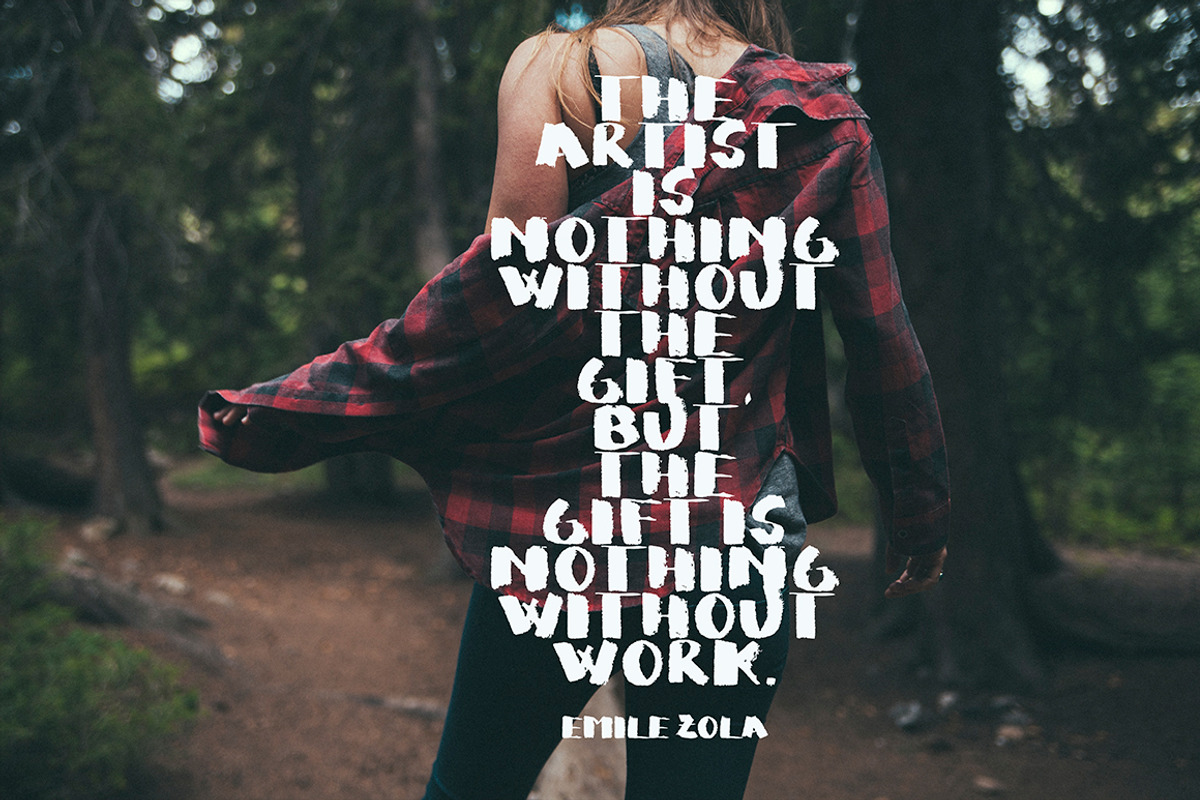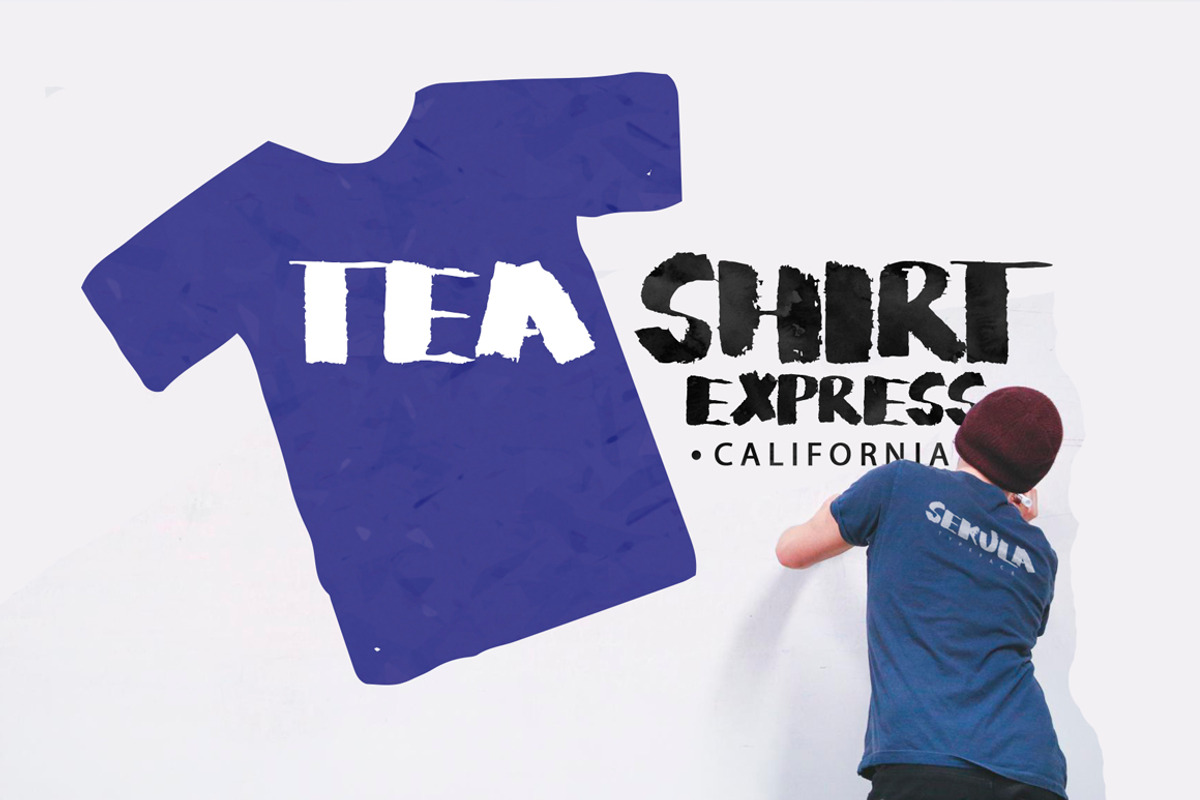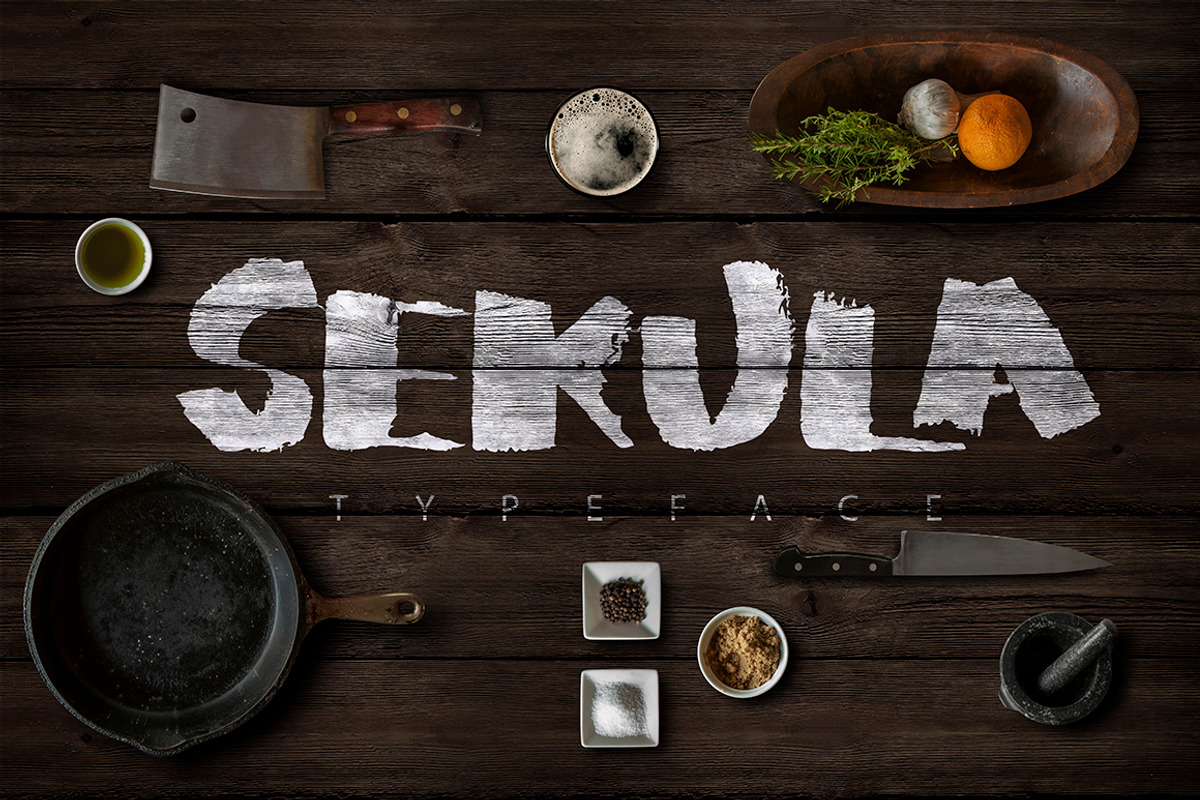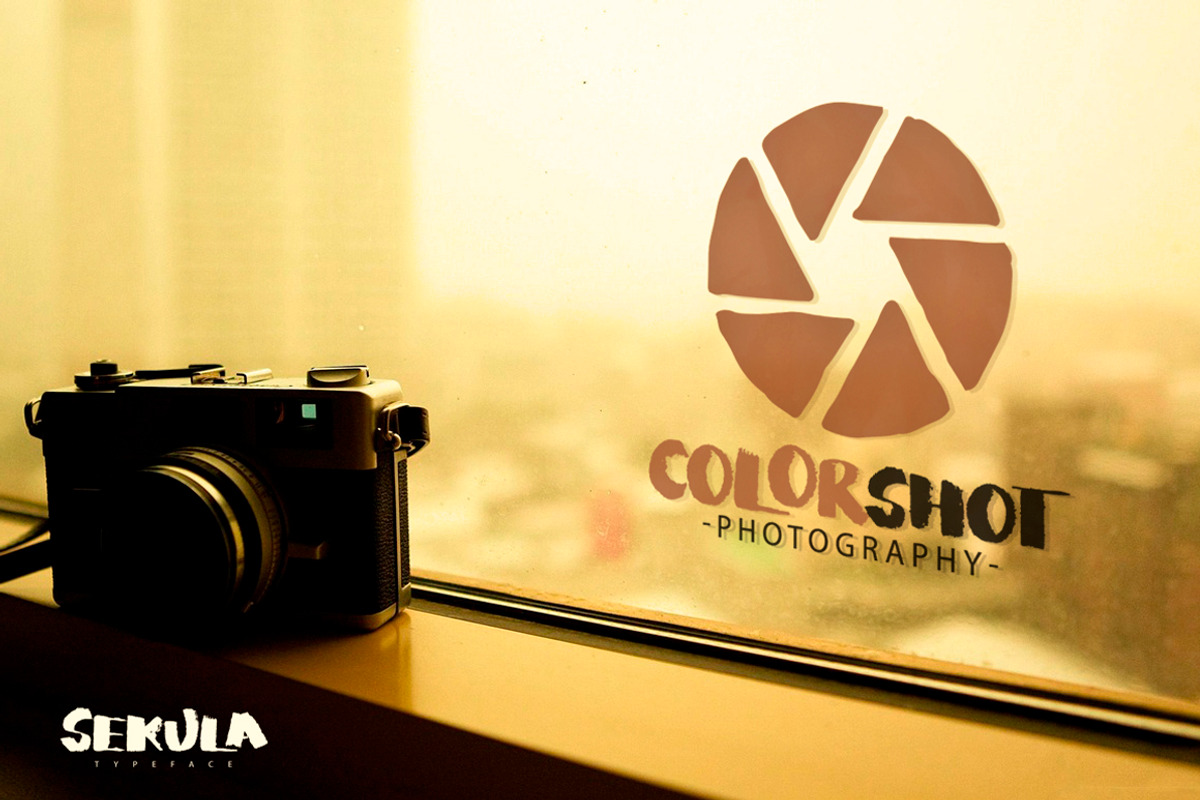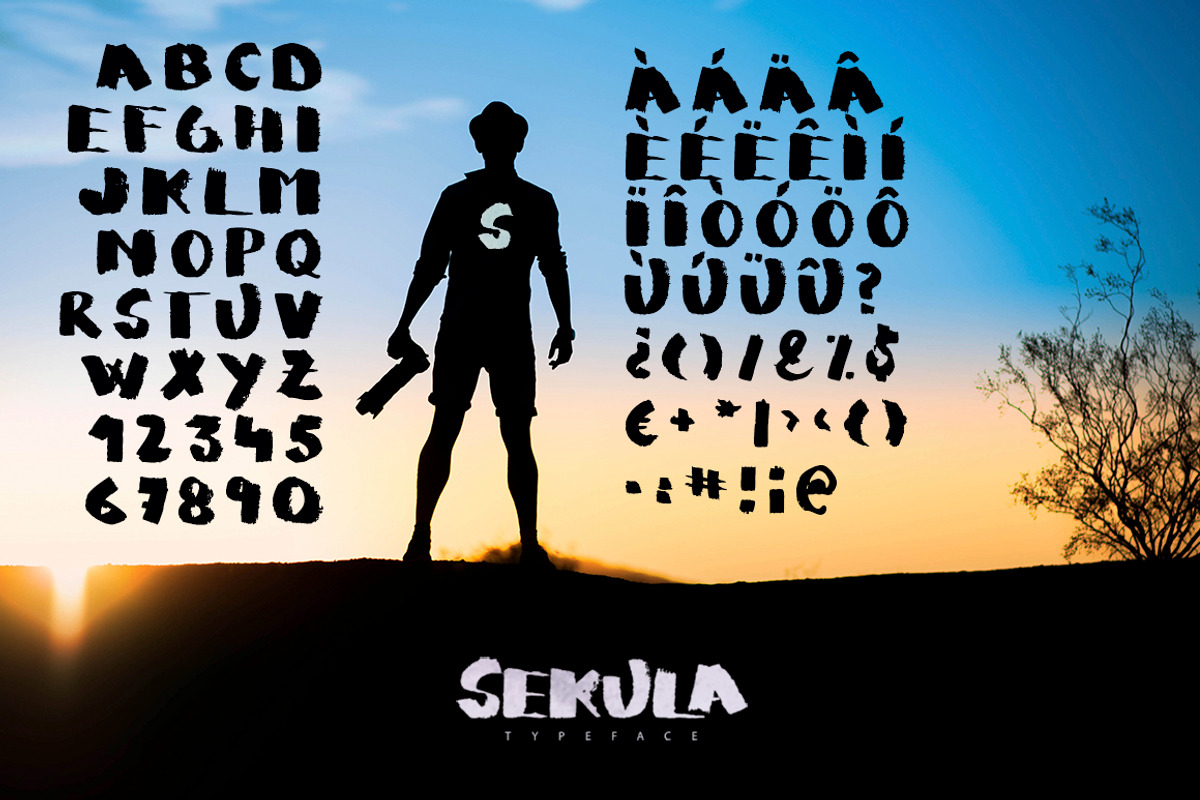
Sekula Script Typeface
Sekula Script Typeface by SmartDesigns is a font selected for branding, posters, packaging, typography.
Why Sekula Script Typeface is worth a look
Sekula Script Typeface by SmartDesigns fits naturally into Branding, posters, packaging, typography.